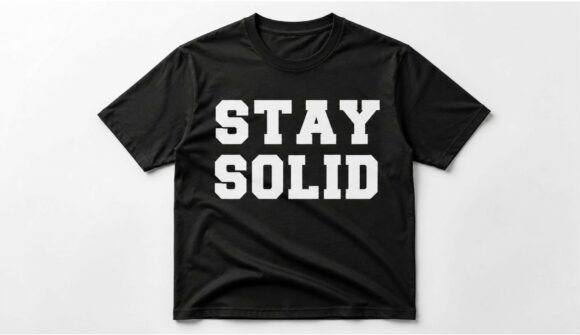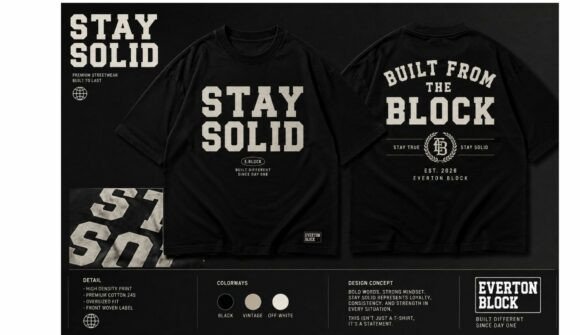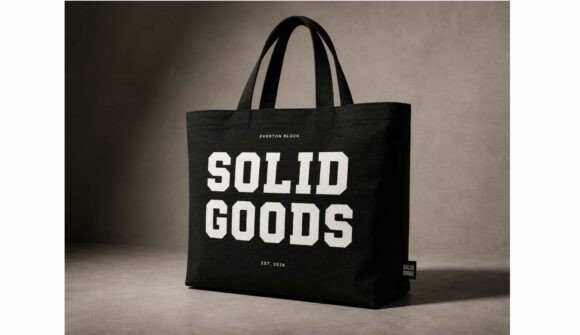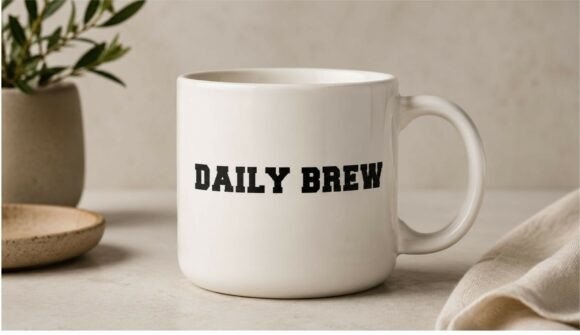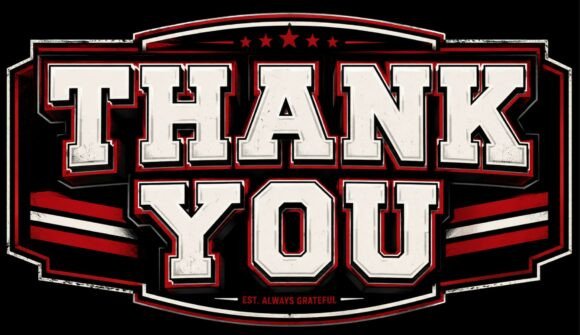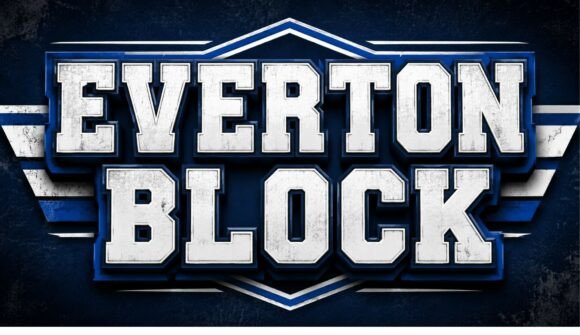
Evertone Block Font: The Ultimate Choice for Sports and Collegiate Designs
Are you looking for a font that exudes strength, competitiveness, and professionalism? Look no further than the Evertone Block Font. Inspired by classic varsity, athletic, and collegiate lettering, this bold display font is perfect for creating standout designs that demand attention. With its strong slab-serif shapes, thick block construction, and powerful sports identity, Evertone Block is the ideal choice for designers and crafters who want to create stunning sports branding, team logos, jersey names, school designs, and more.
What Makes Evertone Block Font So Special?
Evertone Block Font is a unique and versatile typeface that is specifically designed to meet the needs of sports and collegiate designs. Its bold and masculine appearance makes it perfect for creating eye-catching designs that stand out from the crowd. The font’s strong slab-serif shapes and thick block construction give it a rugged and athletic feel that is perfect for sports teams, gym branding, and vintage sports projects.
Perfect for Sports Branding and Designs
Evertone Block Font is perfect for a wide range of sports branding and design projects, including:
- Sports team logos and jerseys
- Gym branding and fitness designs
- School designs and collegiate themes
- Tournament posters and championship graphics
- Apparel, stickers, banners, badges, and merchandise designs
- Esports and gaming designs
- Vintage sports projects and retro-themed designs
Whether you’re designing for a professional sports team or a local school, Evertone Block Font is the perfect choice for creating bold and eye-catching designs that make a statement.
Key Features of Evertone Block Font
Evertone Block Font has several key features that make it the ultimate choice for sports and collegiate designs:
- Bold and masculine appearance: Evertone Block Font has a strong and rugged appearance that is perfect for sports and athletic designs.
- Slab-serif shapes: The font’s slab-serif shapes give it a classic and timeless feel that is perfect for sports and collegiate designs.
- Thick block construction: The font’s thick block construction gives it a strong and powerful appearance that is perfect for creating eye-catching designs.
- Powerful sports identity: Evertone Block Font has a powerful sports identity that is perfect for creating designs that demand attention and respect.
Why Choose Evertone Block Font?
There are many reasons why Evertone Block Font is the ultimate choice for sports and collegiate designs:
- Unique and versatile: Evertone Block Font is a unique and versatile typeface that can be used for a wide range of design projects.
- Easy to read: The font’s bold and clear design makes it easy to read, even at small sizes.
- High-quality design: Evertone Block Font is designed to the highest standards, ensuring that your designs look professional and polished.
- Perfect for digital and print designs: The font is perfect for both digital and print designs, making it a great choice for designers who work on a wide range of projects.
Evertone Block Font is the ultimate choice for designers and crafters who want to create stunning sports and collegiate designs. With its bold and masculine appearance, strong slab-serif shapes, and powerful sports identity, this font is perfect for creating eye-catching designs that demand attention. Whether you’re designing for a professional sports team or a local school, Evertone Block Font is the perfect choice for creating bold and professional designs that make a statement.